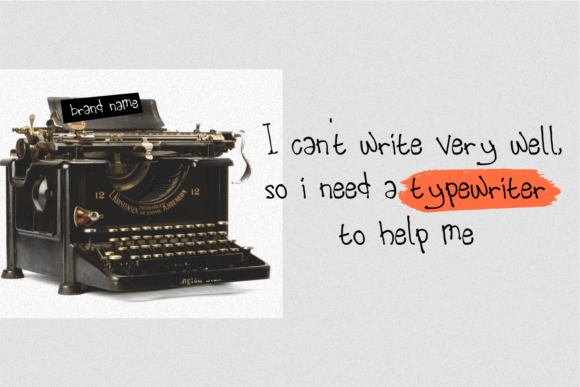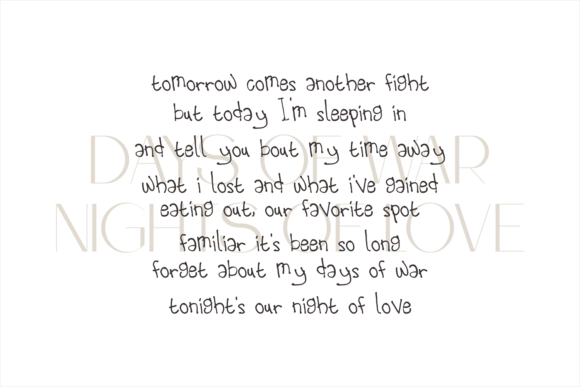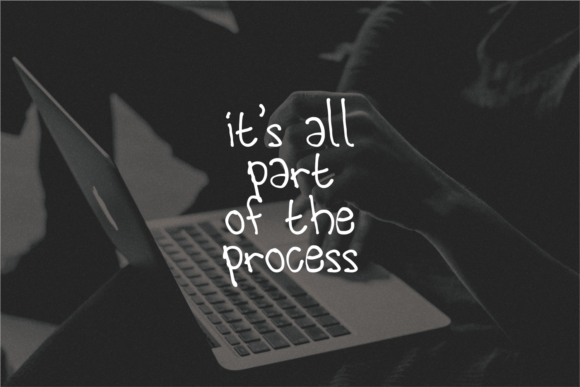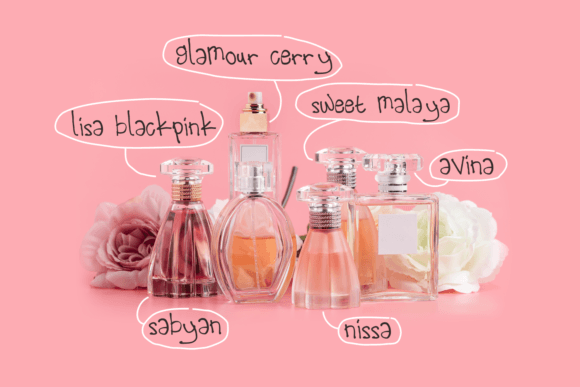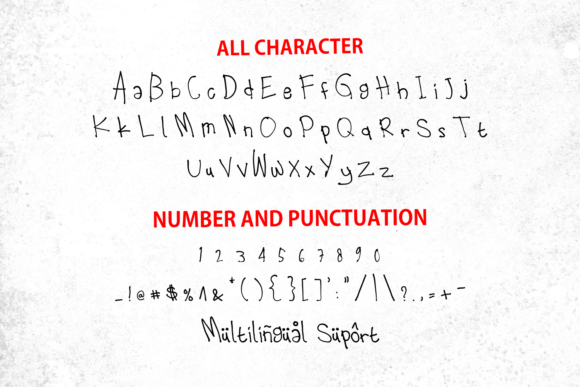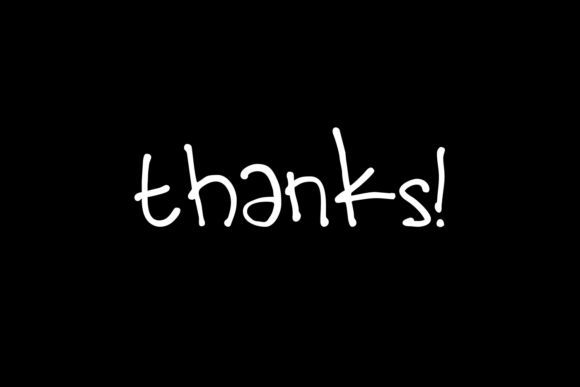
The Struggle is Real: Finding the Perfect Handwritten Font
I still remember the frustration of working on a digital planner project, determined to give it a personal touch. I scoured the internet for the perfect handwritten font, but nothing seemed quite right. That was until I stumbled upon Can’t Write – a game-changing font that looks raw and real, as if you actually wrote the words.
Can’t Write: The Perfect Handwritten Font for Digital Creations
Can’t Write is a handwritten font designed to mimic the imperfections of real handwriting. It’s perfect for digital planners, digital notebooks, and any project that requires a personal touch. With Can’t Write, you can add a touch of authenticity to your creations and make them look handmade.
My Honest Review of Can’t Write
Here’s what I love about Can’t Write:
- ✨ Authentic look: Can’t Write looks like it was written by hand, with all the imperfections and quirks that make it unique.
- ✅ Easy to read: Despite its handwritten nature, Can’t Write is surprisingly easy to read, even in smaller sizes.
- 💻 Versatile: Can’t Write works well in a variety of contexts, from digital planners to social media graphics.
And here are a few small quirks to keep in mind:
- 🤔 Limited kerning options: Can’t Write doesn’t have extensive kerning options, which can make it tricky to use in certain situations.
- ⚠️ Occasional glyph issues: Some users have reported issues with certain glyphs, such as the ampersand or dollar sign.
The Story Behind Can’t Write
Can’t Write was designed by a team of creatives who wanted to create a font that looked like it was written by hand. They drew inspiration from their own handwriting and the imperfections that make it unique. The result is a font that’s both authentic and versatile.
| Font Name | Can’t Write Font |
| Author | Forberas Club |
| What is Can’t Write? | Can’t Write is a handwritten font designed to mimic the imperfections of real handwriting. |
| Is Can’t Write easy to read? | Yes, Can’t Write is surprisingly easy to read, even in smaller sizes. |
| Does Can’t Write support OpenType features? | Yes, Can’t Write supports OpenType features, including stylistic alternates and glyphs. |